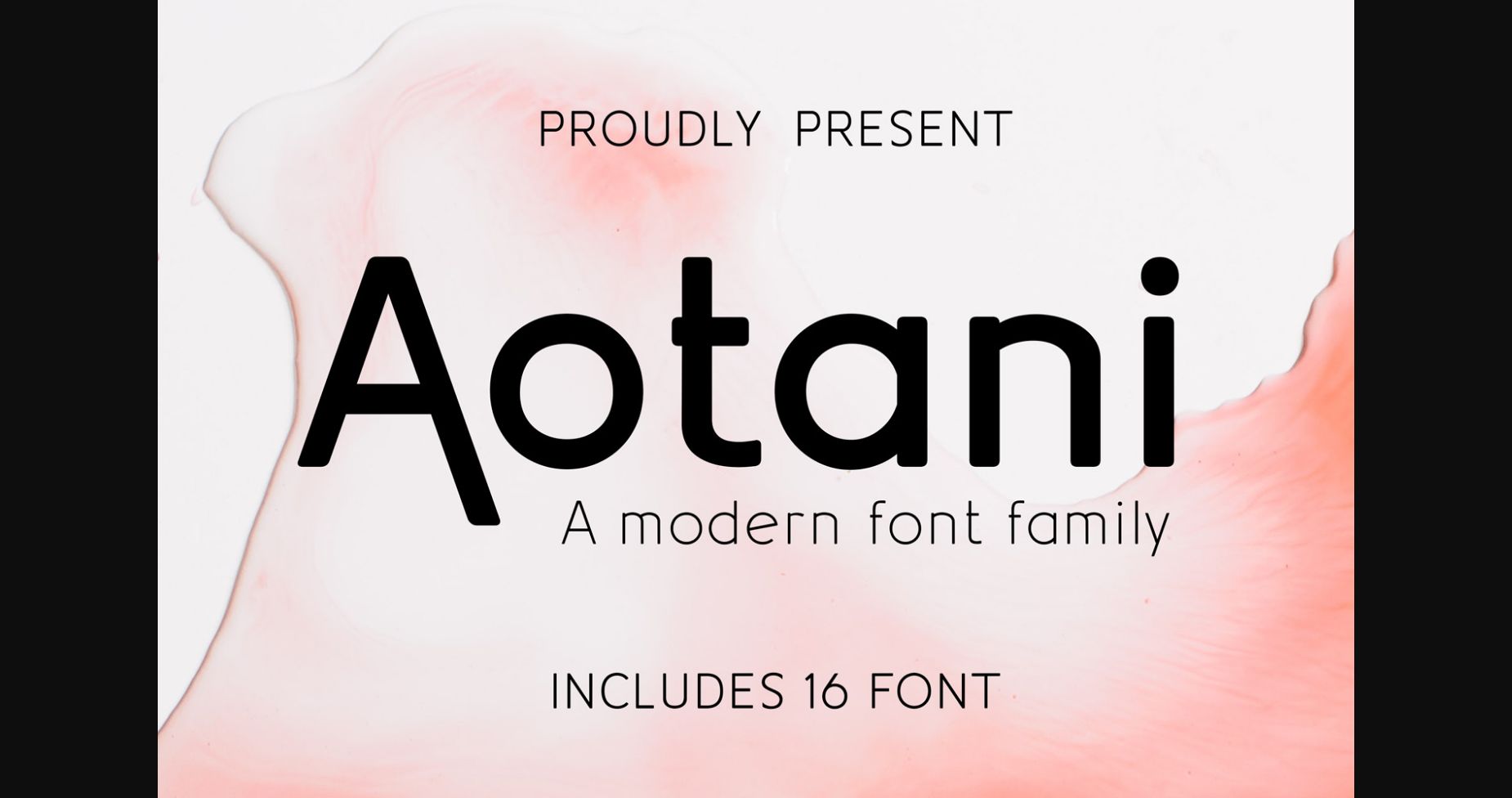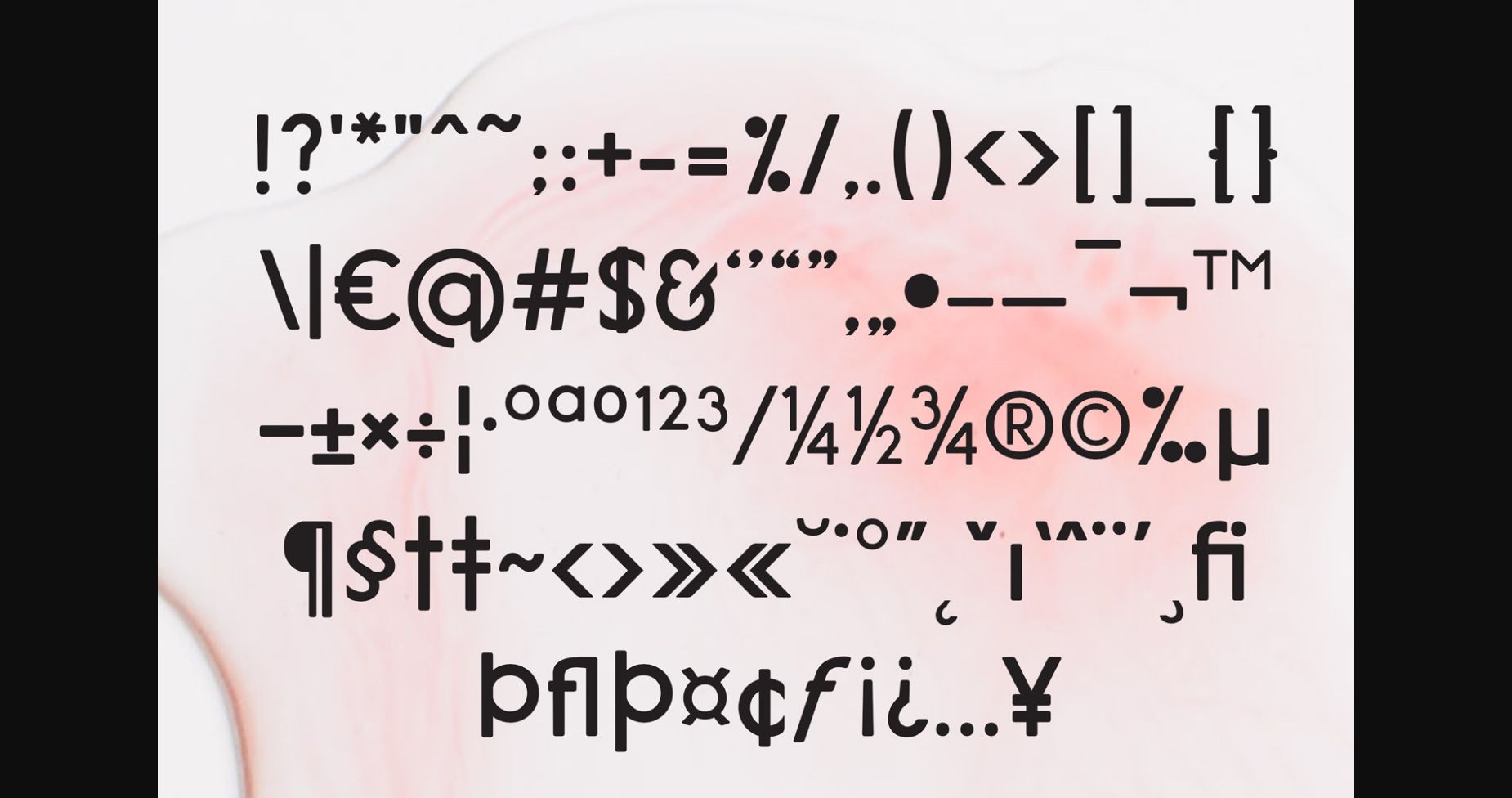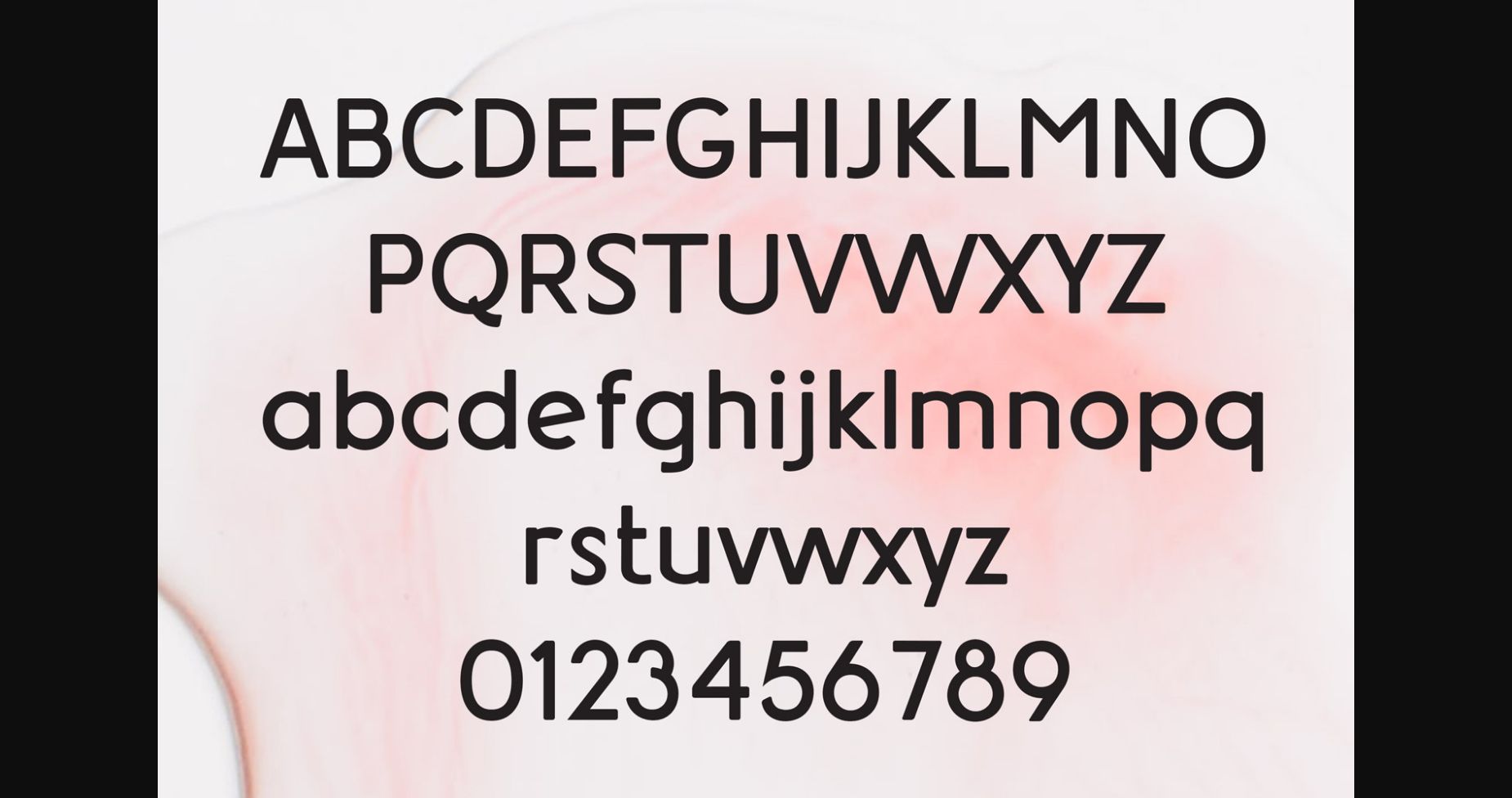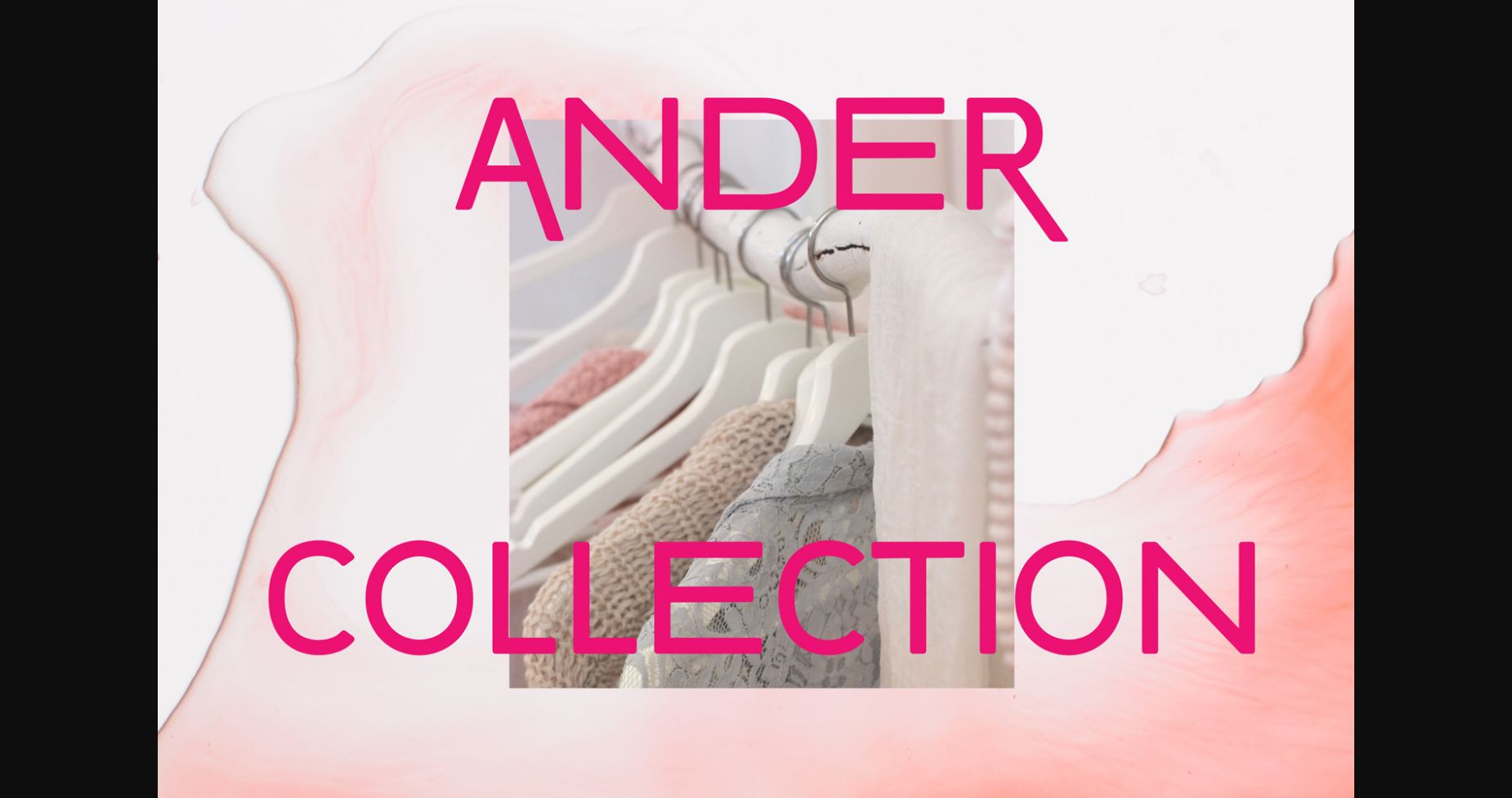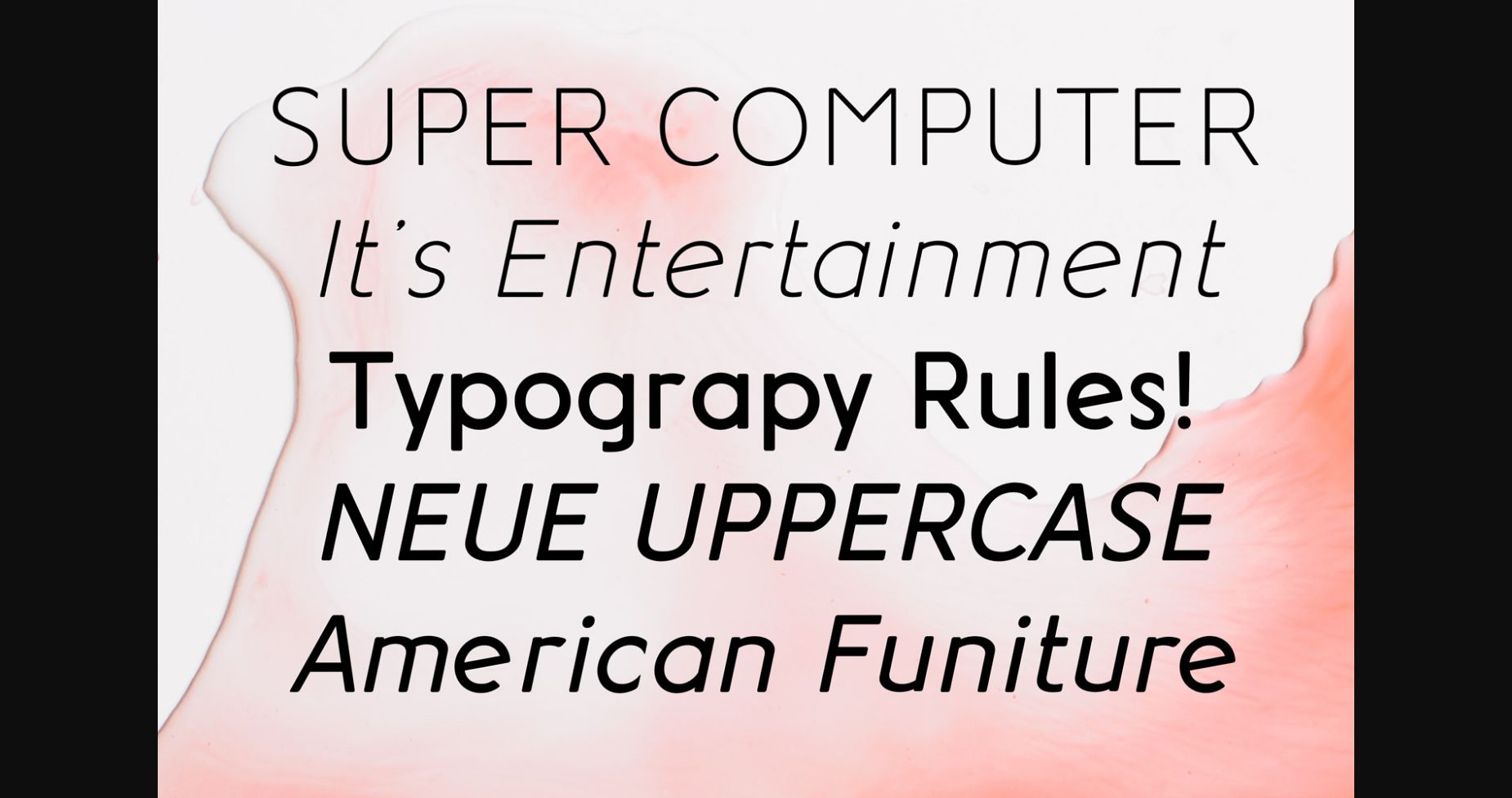
About Aotani Font
Aotani is a thin lettered and simple sans serif font. Masterfully designed to become a true favorite, this font has the potential to bring each of your creative ideas to the highest level!